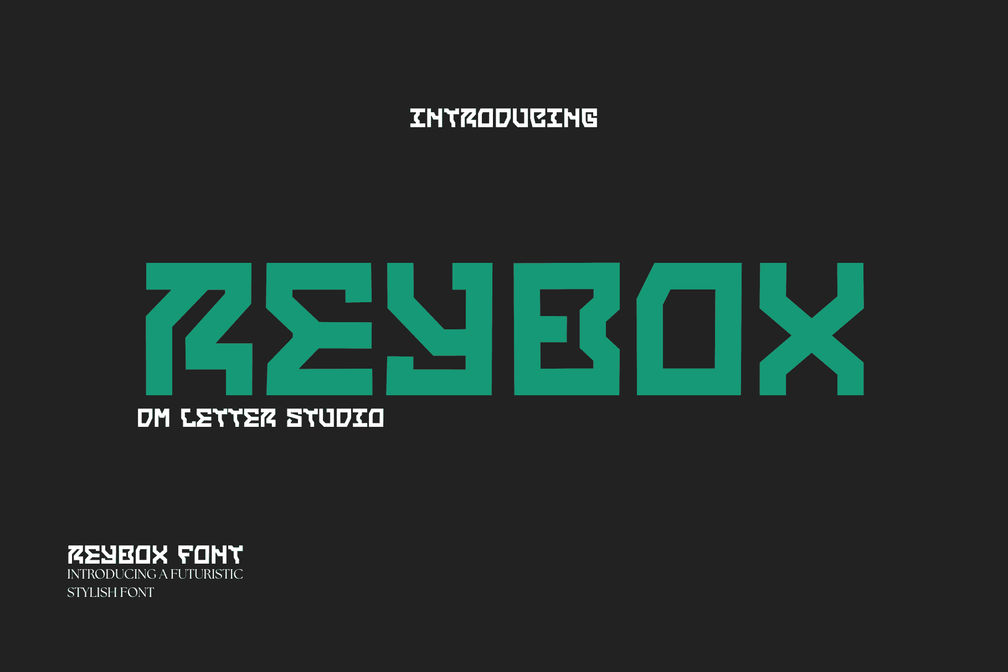
Reybox
Reybox – A Stylish Futuristic Font
Reybox is a sleek and modern futuristic font designed for cutting-edge aesthetics and forward-thinking projects. With geometric shapes, sharp angles, and sci-fi flair, Reybox is perfect for tech branding, space-themed posters, digital interfaces, and visionary logo design. It brings a high-tech edge to any creative work.
• Futuristic & Tech-Inspired Style: Clean lines and unique letterforms create a bold, modern aesthetic.
• Perfect for Digital & Sci-Fi Projects: Ideal for game titles, movie posters, app interfaces, and cyberpunk branding.
• Versatile Display Use: Eye-catching yet readable, suitable for both headers and bold typographic designs.